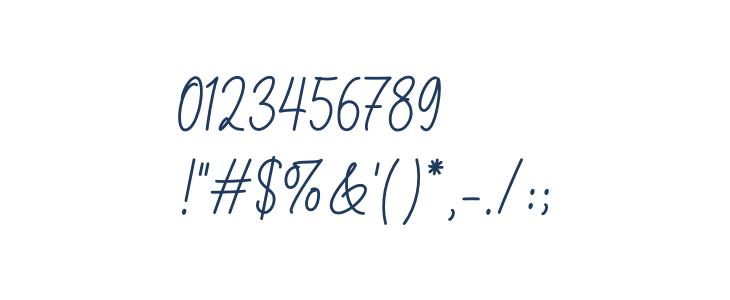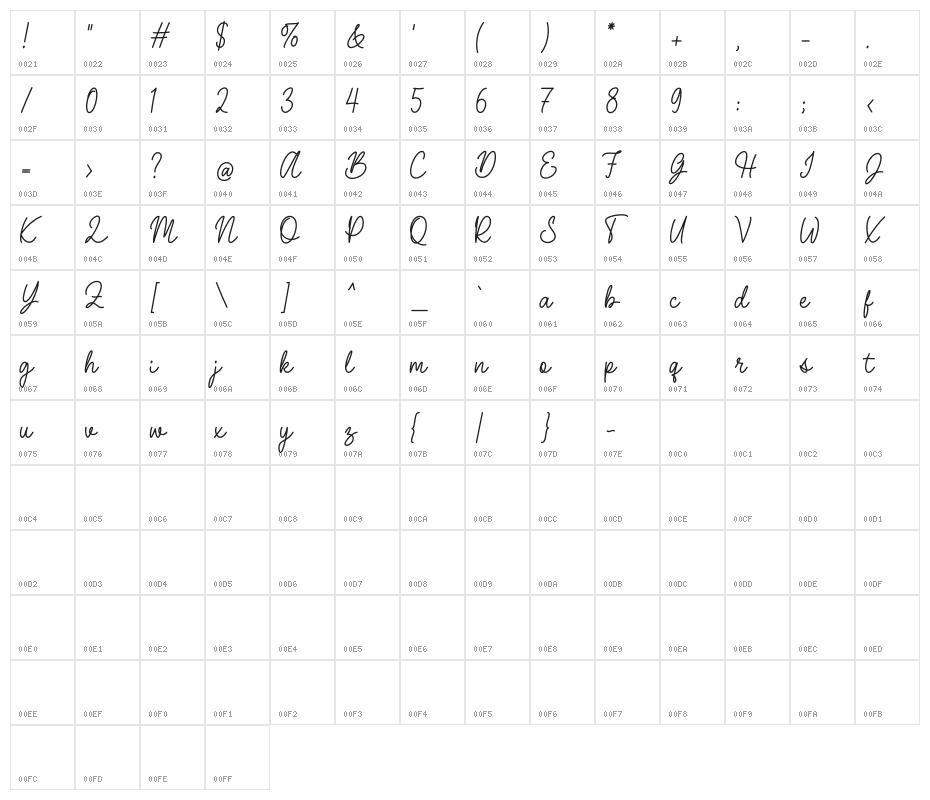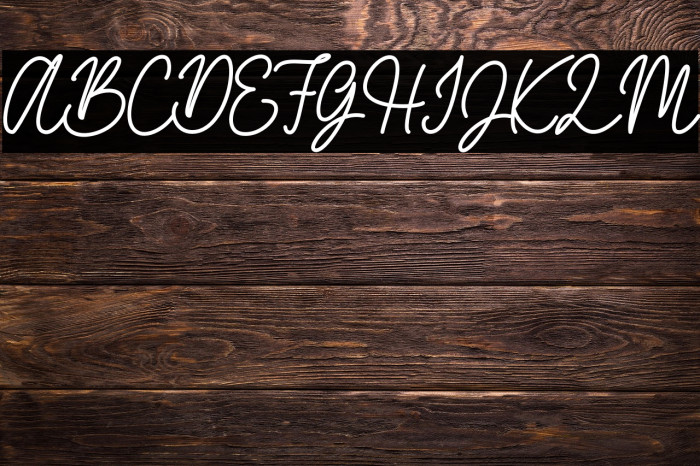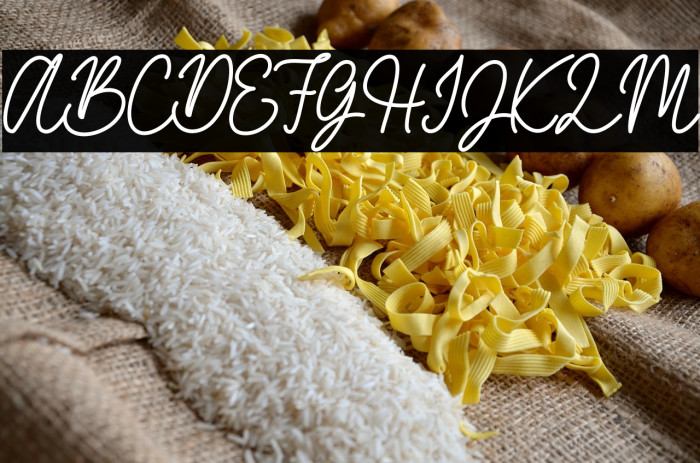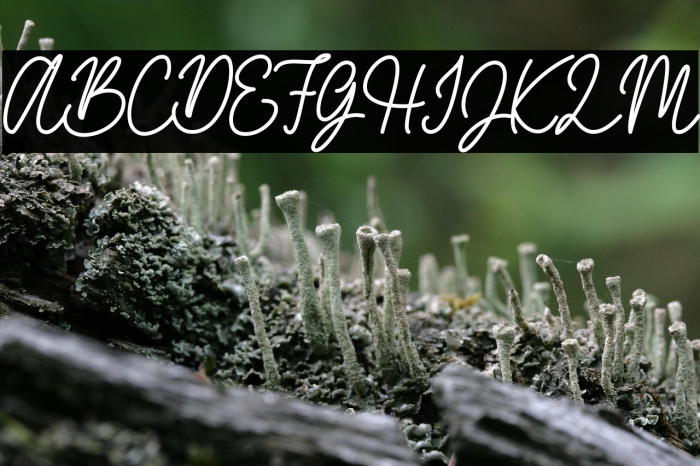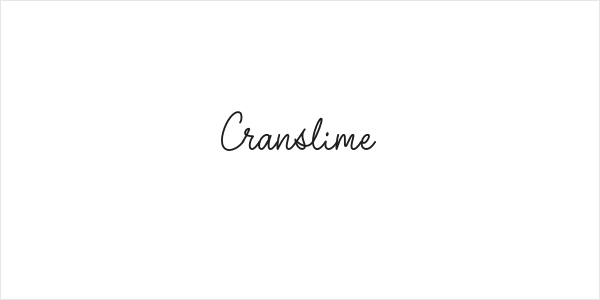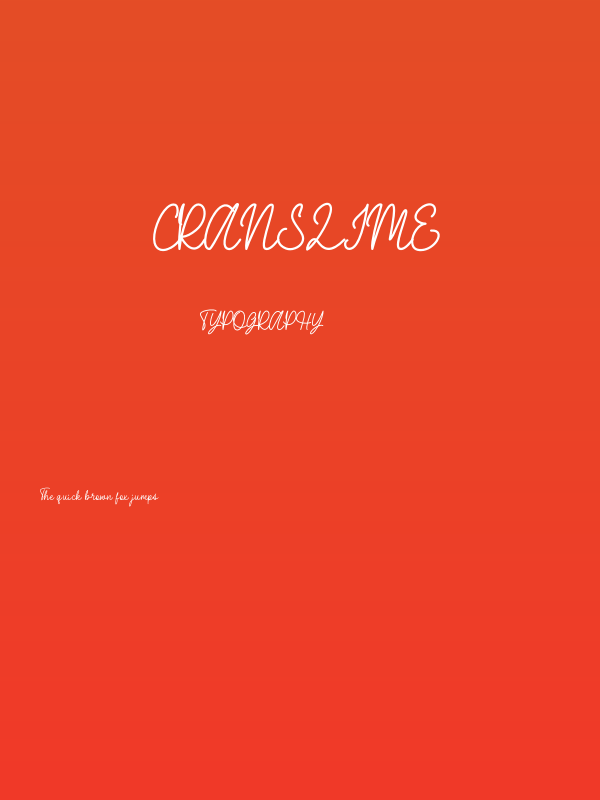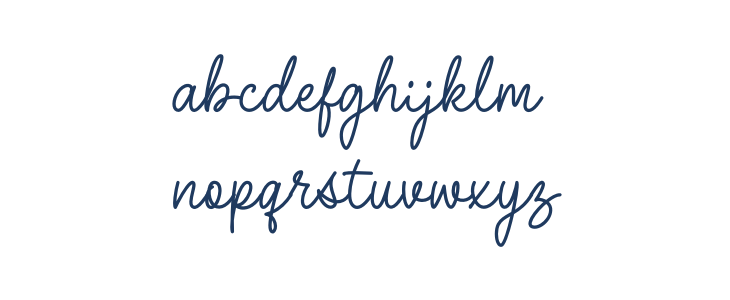
Cranslime Font
Cranslime Description
This font exudes a casual and friendly vibe with its handwritten style. The letters are fluid and connected, mimicking the natural flow of cursive handwriting. Each character is crafted with a consistent stroke width, giving it a harmonious and balanced appearance. The uppercase letters are slightly more embellished, adding a touch of elegance, while the lowercase letters maintain a simple and approachable look. The numerals and special characters are designed to match the overall style, ensuring a cohesive look across all text. This font is perfect for projects that require a personal touch or a relaxed, informal tone.
| Overall Style | Casual, Friendly |
| Use Case | Headlines, Invitations, Personal Branding |
| Proposed Projects | Ideal for greeting cards, invitations, personal branding, and social media graphics. |